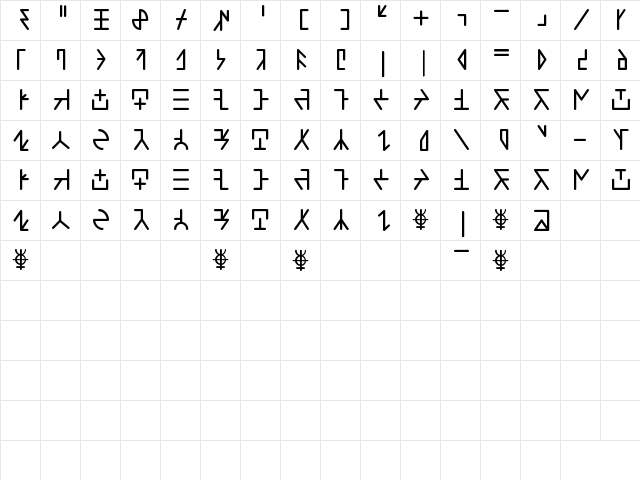
Ishirkian Regular Font Preview
Ishirkian Regular
Design Context for Ishirkian Typeface
Ishirkian takes a measured approach to typography — its balanced proportions and neutral character make it a reliable workhorse for both digital and print work.